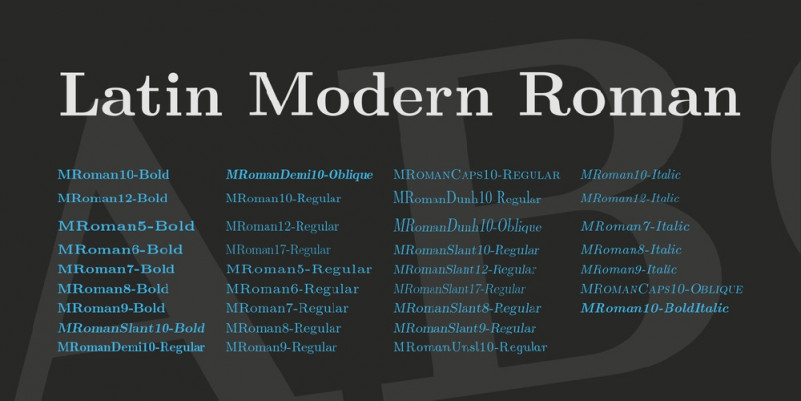
Latin Modern Roman Font
The Latin Modern fonts are derived from the famous Computer Modern fonts designed by Donald E. Knuth and described in Volume E of his Computers & Typesetting series.
An extended Type 1 (PostScript) form implementation of the Computer Modern fonts resulting from the work of numerous people was derived from high resolution METAFONT-generated bitmaps and published in 1997 for general use under the name of AMSFonts by a consortium of scientific publishers which included the American Mathematical Society (AMS). The AMS since then holds the copyrights for AMSFonts in order to assure their authenticity. More details can be found in the relevant section at the AMS web site.
One of the main extensions characterizing the Latin Modern collection is the addition of an extensive set of diacritical characters, covering many scripts based on the Latin character set, mainly European, but not only, most notably Vietnamese. The project is authored by Bogusław “Jacko” Jackowski and Janusz M. Nowacki aka “Ulan”, supported in LaTeX matters by Marcin Woliński.